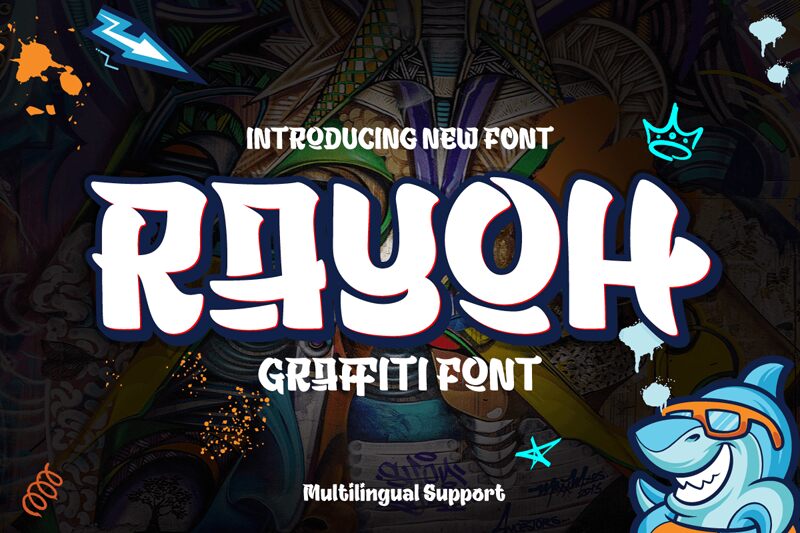
Rayoh font is a free graffiti display font by productype.com which draws inspiration from the urban street art limbs. It carries a playful and rhythmic energy visible in its blocky characters which are beautifully shaped by expert hands. The boldly artistic addition sets exceptional presence in all its end use with high-level expressed experience.
Published in weights regular, medium, semi-bold, and bold, Rayoh can be used for posters, apparel designs, album covers and gig flyers. Also use it for merchandise branding on caps & t-shirts for masculine brands among other commercial project uses.